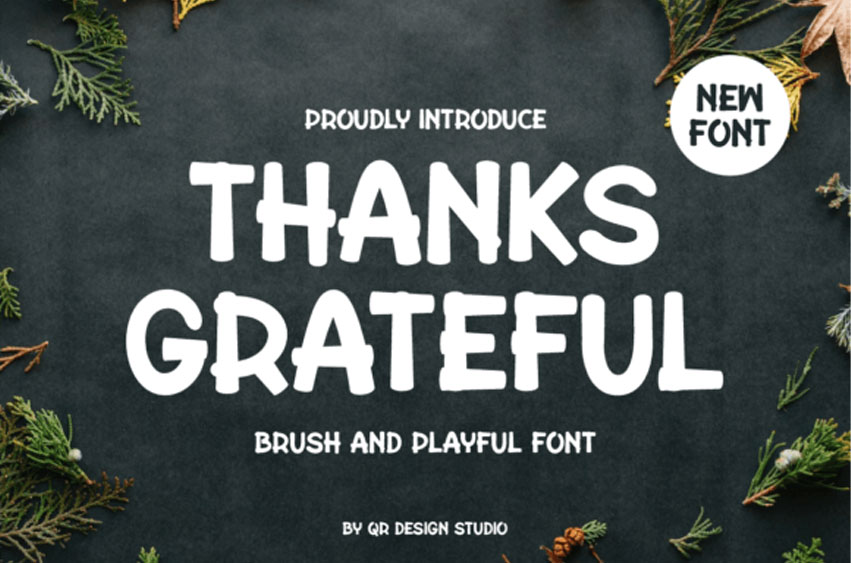
Thanks Grateful Font
Thanks Grateful Font is a sweet and friendly handwritten font. Its natural and unique style makes it incredibly fitting to a large pool of designs.